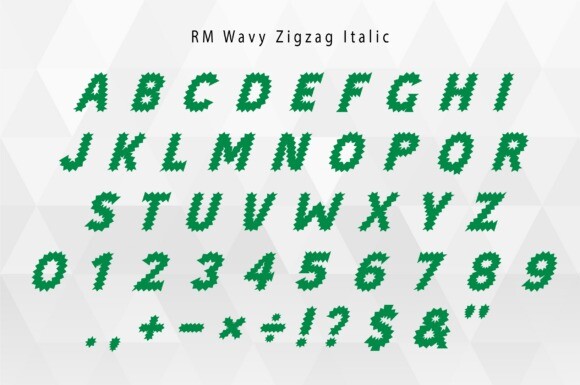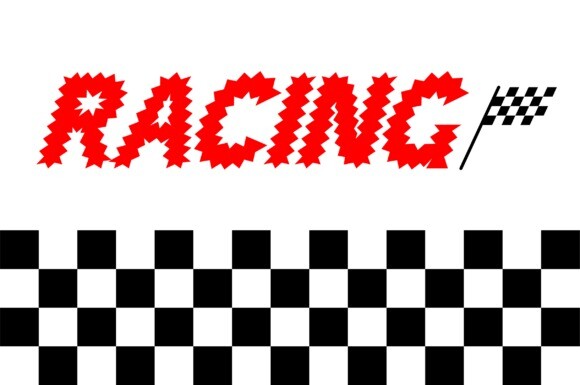
Wavy Zigzag Font
Wavy Zigzag Font, a truly distinctive font. This multifaceted font family not only boasts regular but also italic styles, offering a dynamic range of options for your design needs. Wavy Zigzag is fully compatible with a diverse array of projects. Whether it’s a vibrant advertising campaign or an engaging school project, the font’s playful charm and unique structure are certain to make your work stand out. Enjoy the versatility and creative potential of using Wavy Zigzag in your designs.